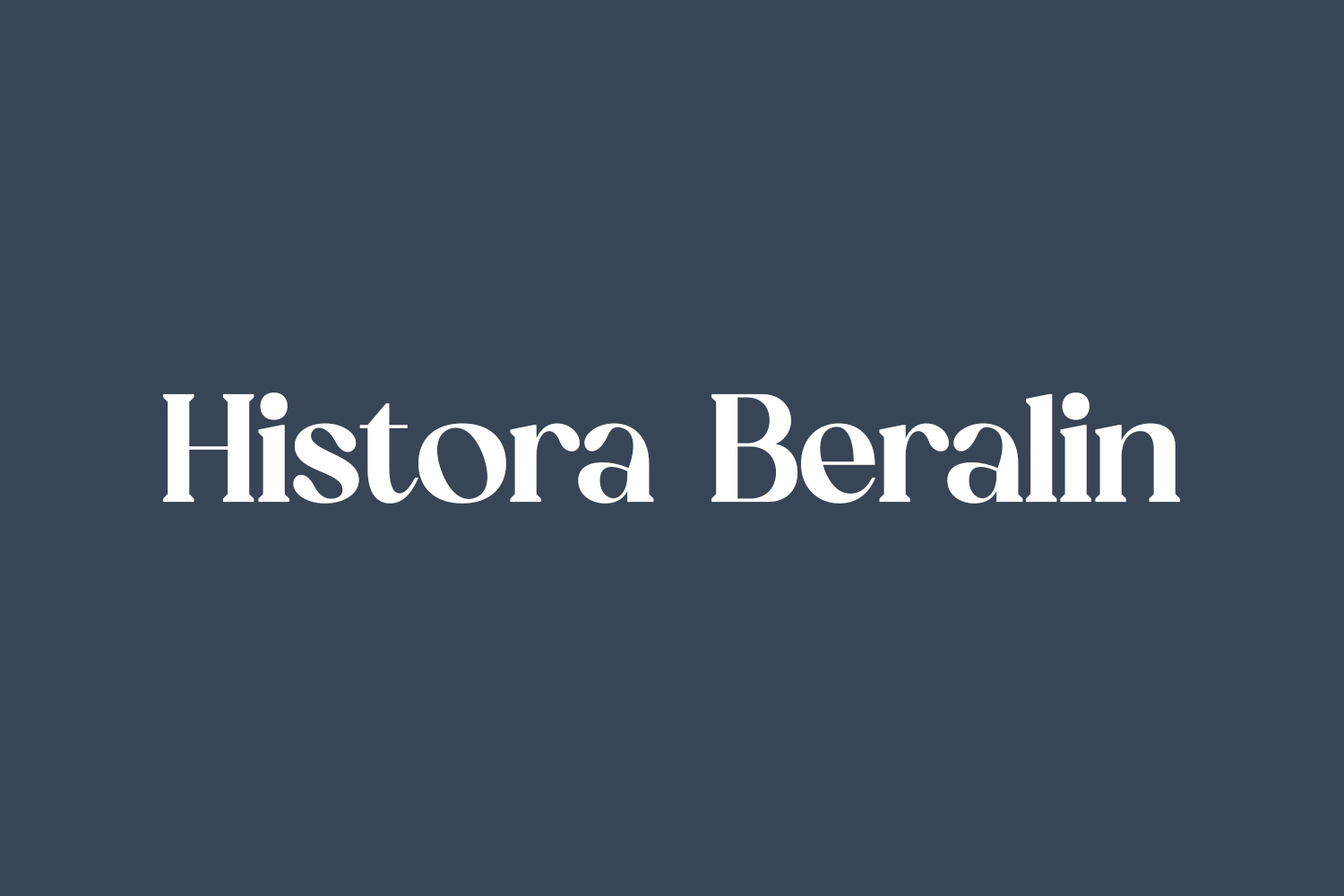
Histora Beralin Free Font, an elegant serif font with a distinct and contemporary design, is an excellent choice for creating luxurious and sophisticated logos, designing book or movie titles, establishing a high-end fashion brand image, enhancing magazine layouts, elevating clothing designs, crafting beautiful lettering, and adding flair to impactful quotes, and beyond. Histora Beralin Free Font is free for personal use only. Please purchase the full version for commercial use.